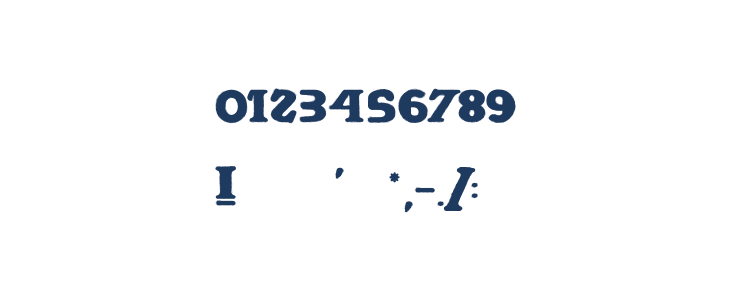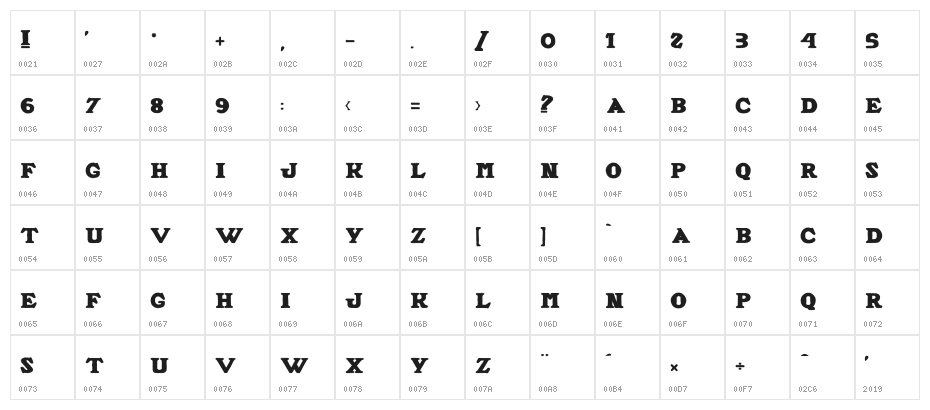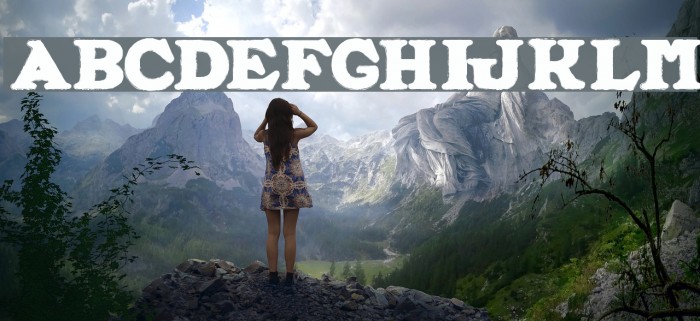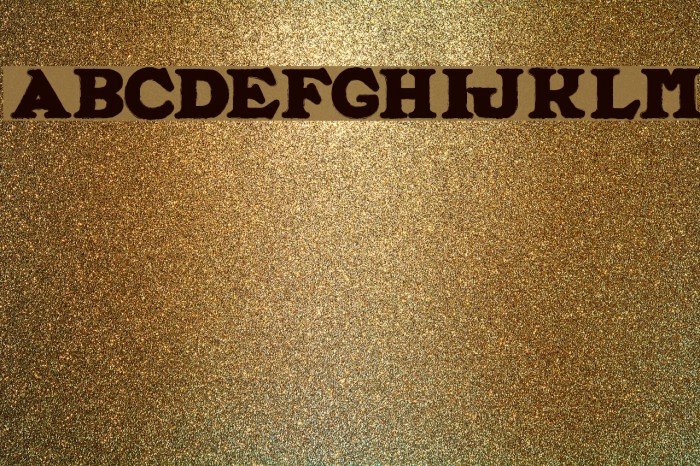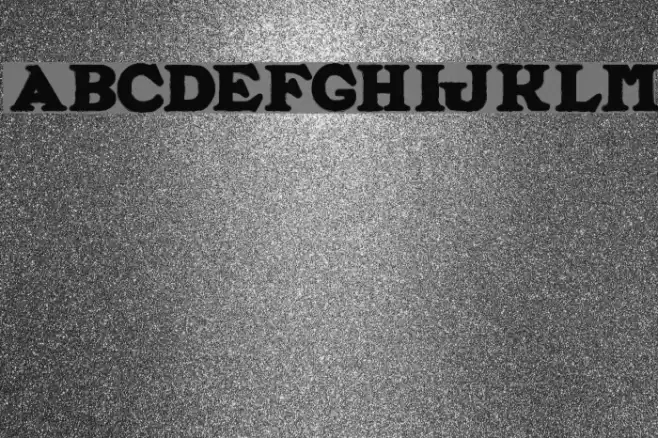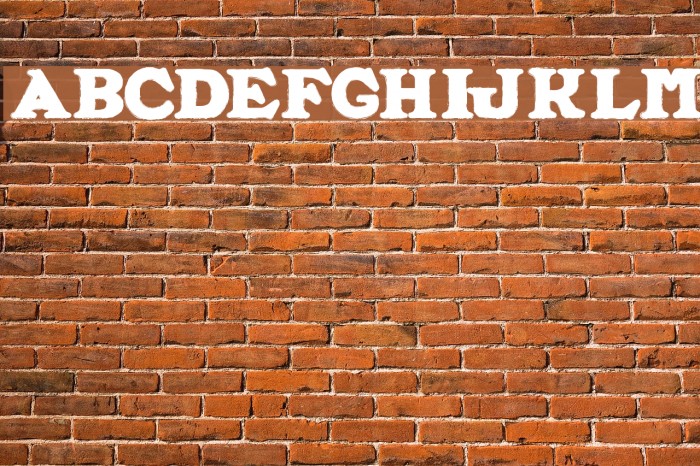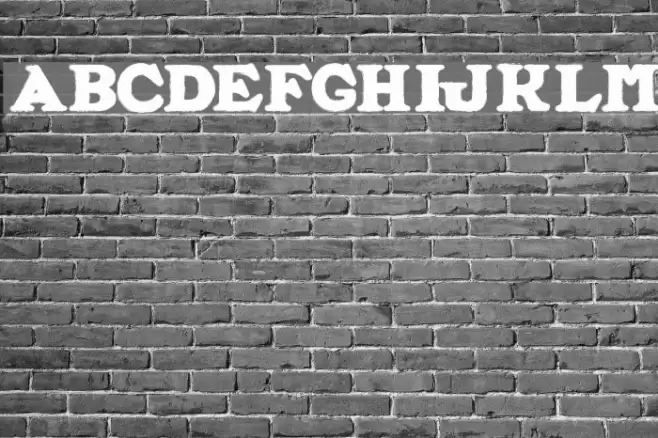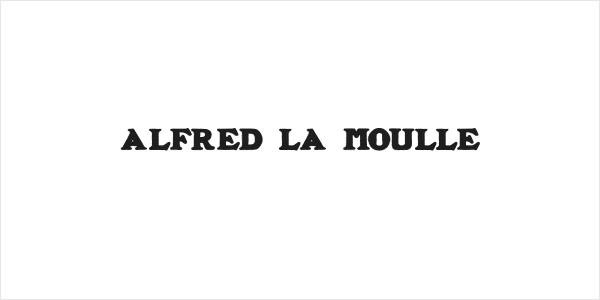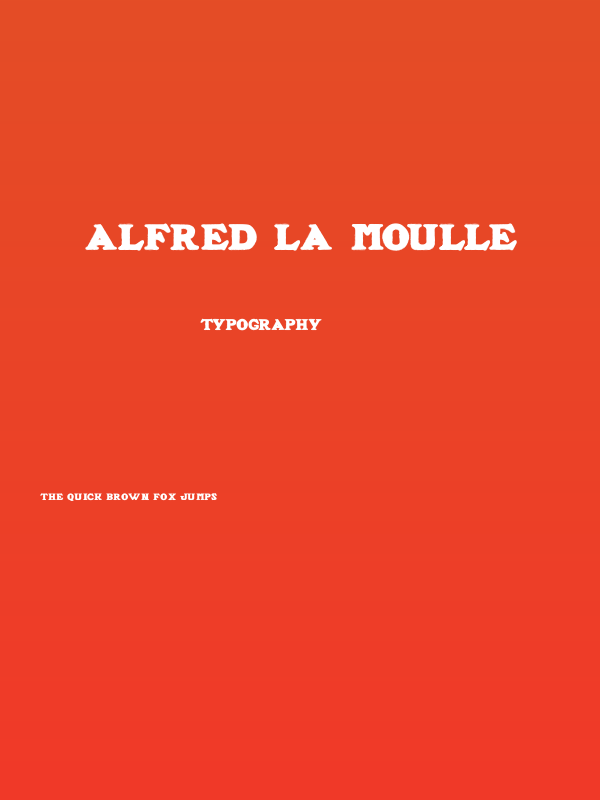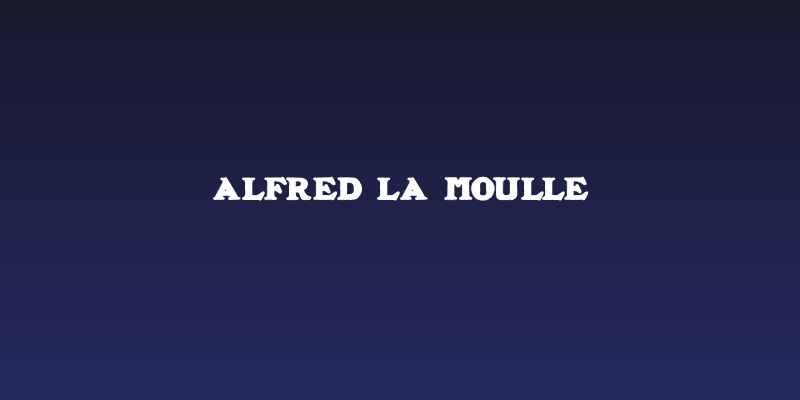
ALFRED LA MOULLE Font
ALFRED LA MOULLE Description
This font features bold, robust characters with a vintage flair, characterized by thick strokes and a slightly distressed appearance. The uppercase letters are prominent and commanding, making them ideal for attention-grabbing headlines. The numerals and special characters maintain the same boldness, ensuring consistency across different uses. The font's slightly rough edges add a touch of authenticity and charm, reminiscent of classic woodblock printing. Its strong presence and unique style make it suitable for projects that require a touch of nostalgia and impact.
Overall StyleVintage
Proposed ProjectsIdeal for vintage posters, branding, logos, and any design requiring a bold, nostalgic touch.